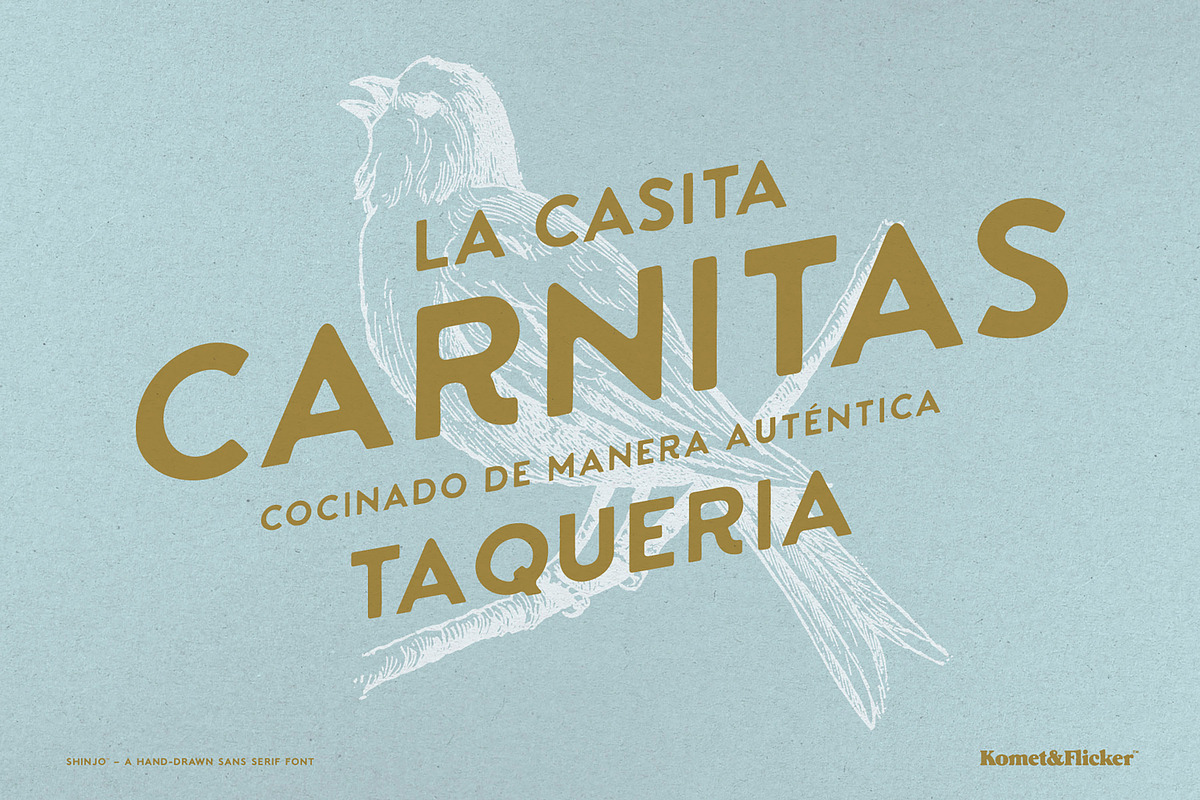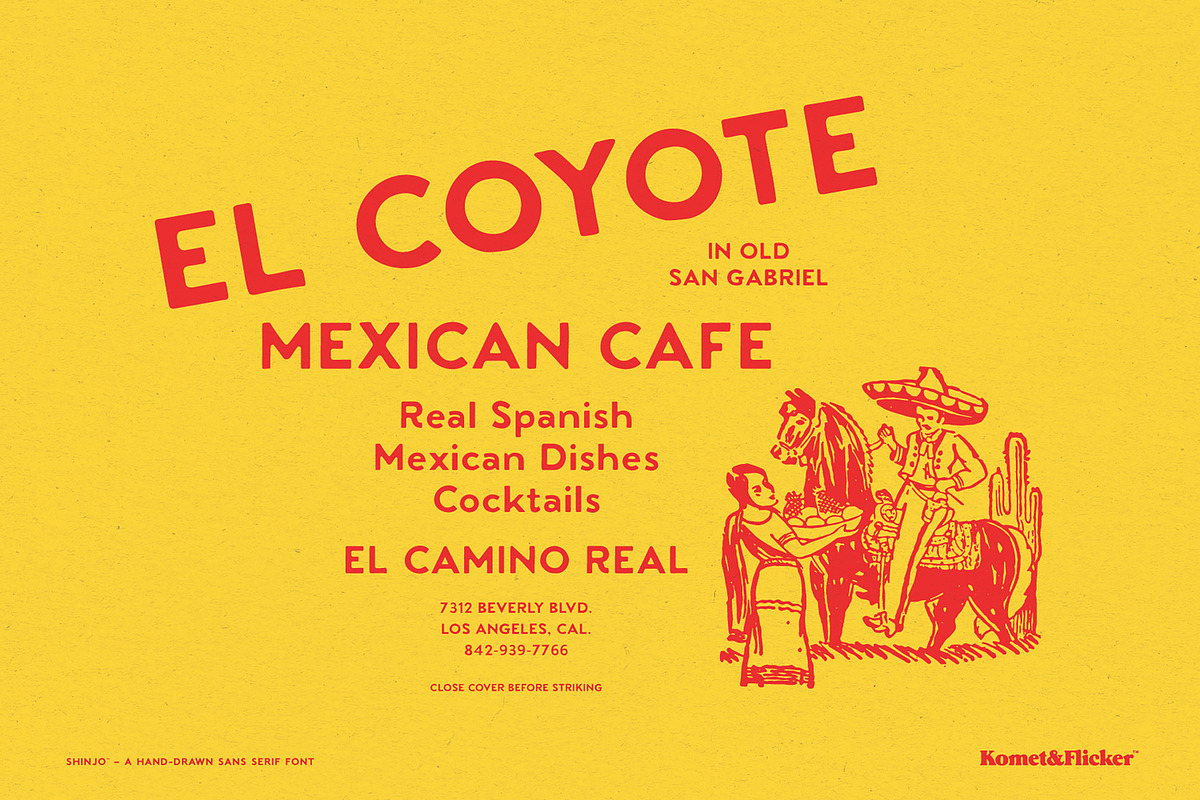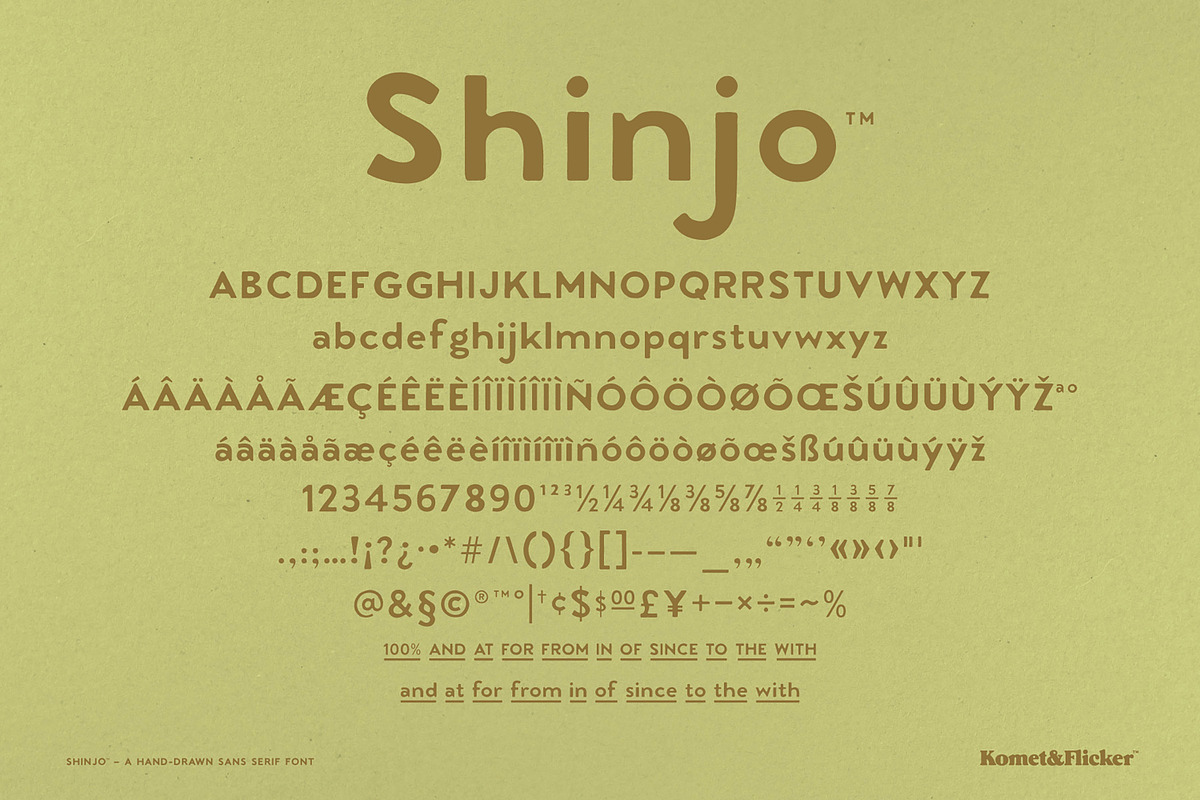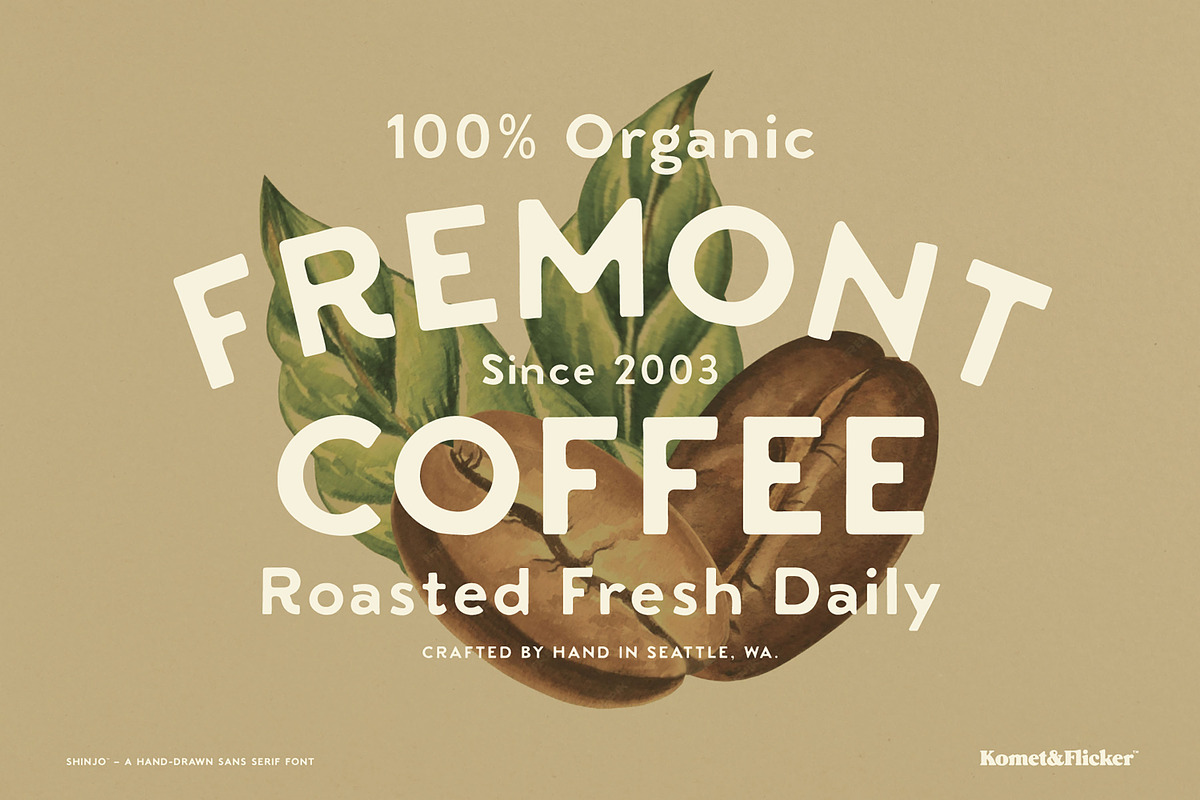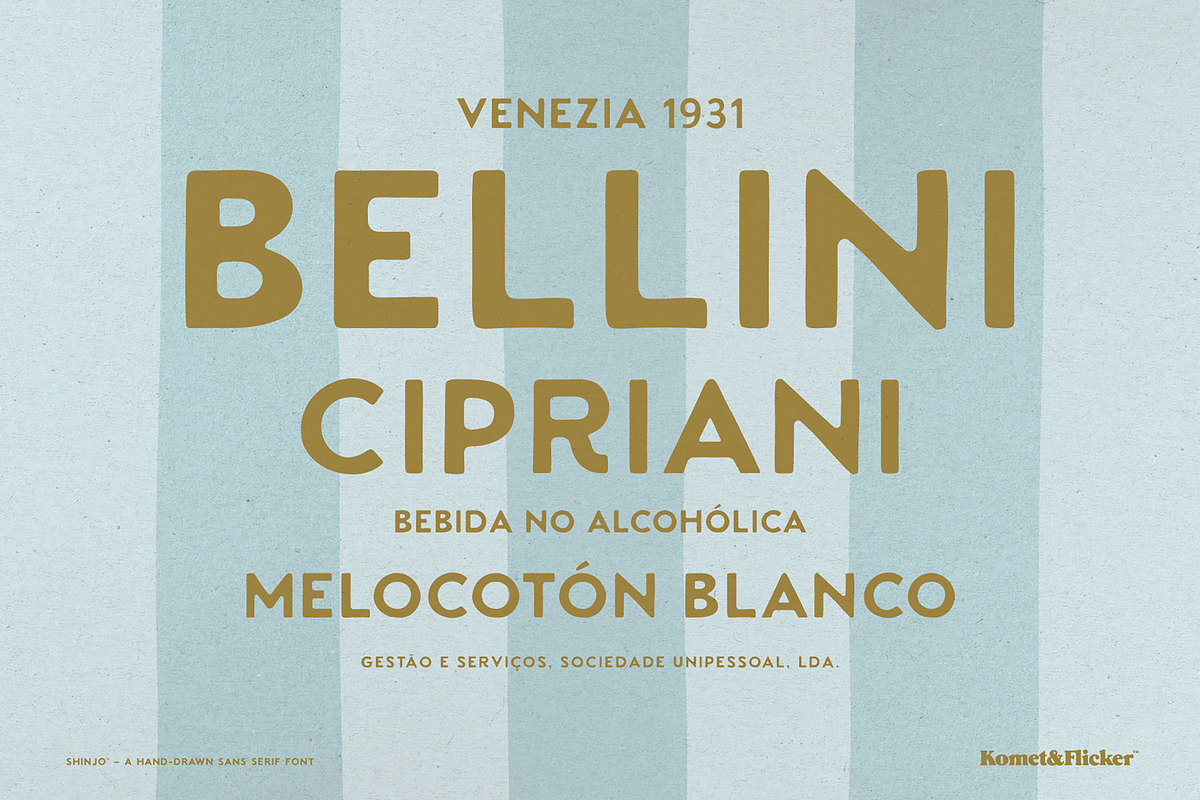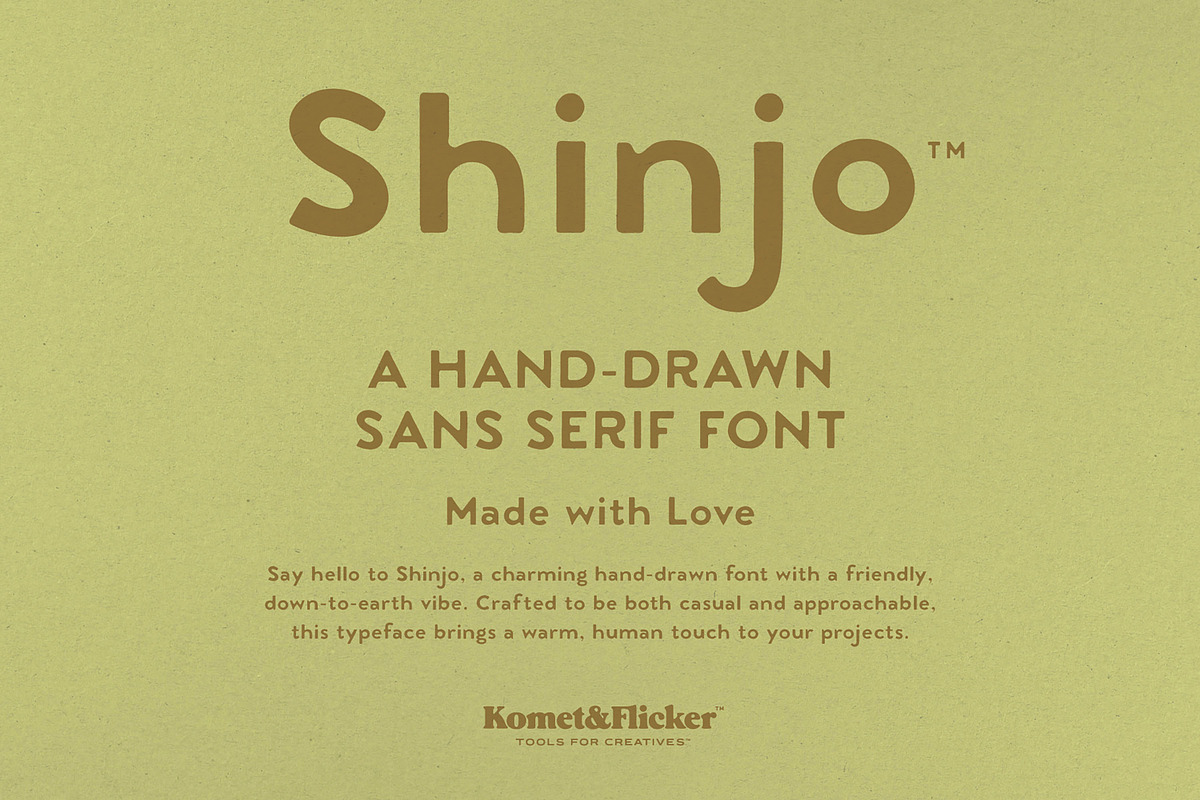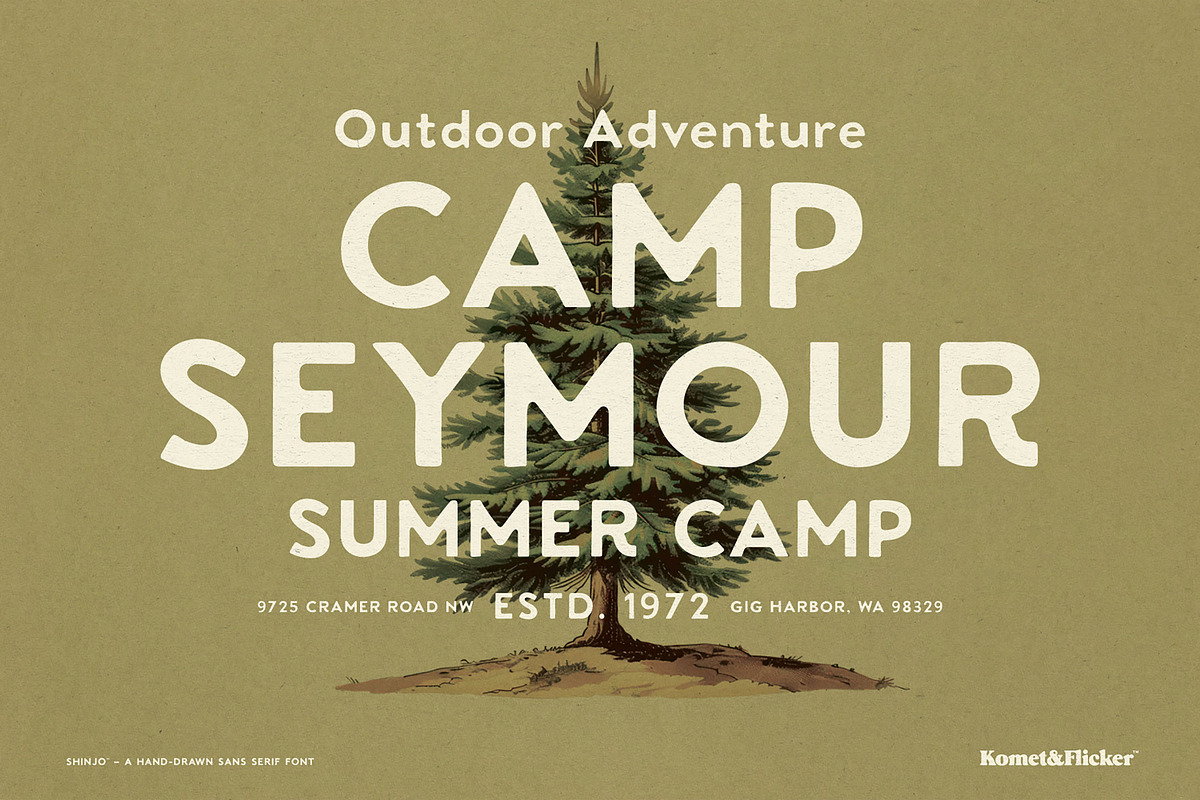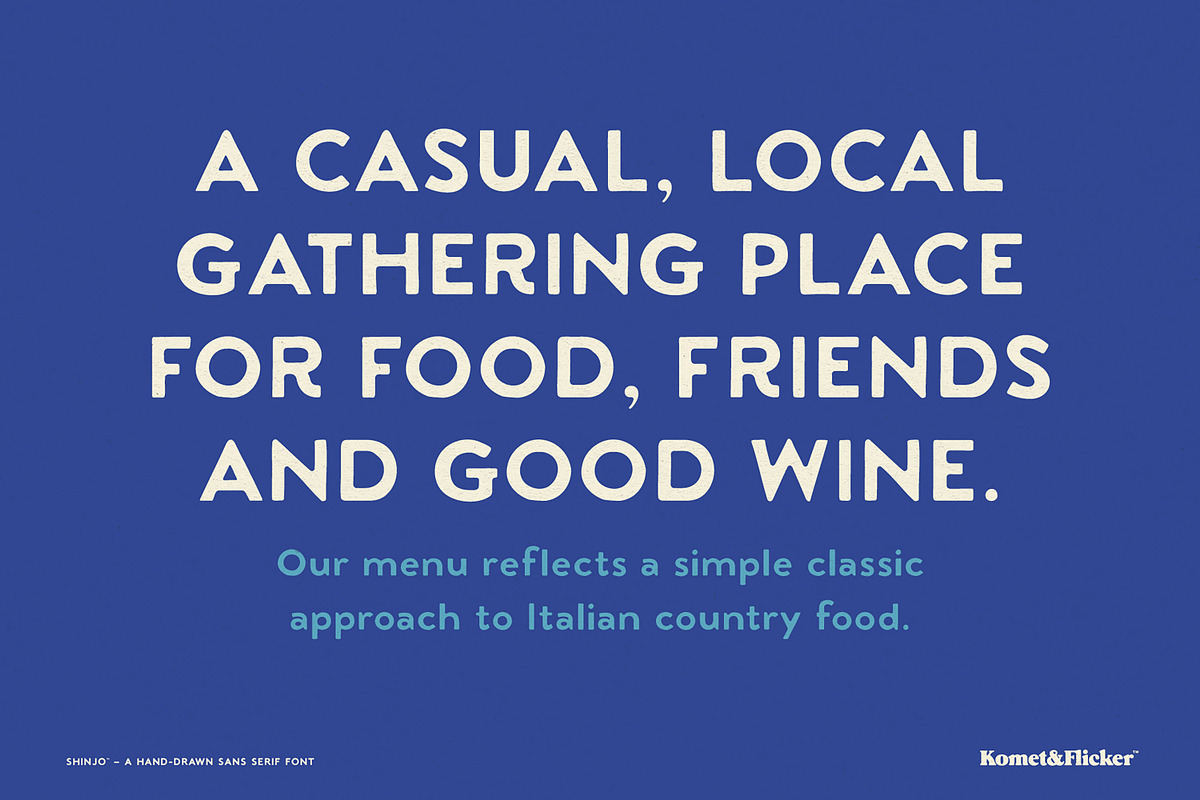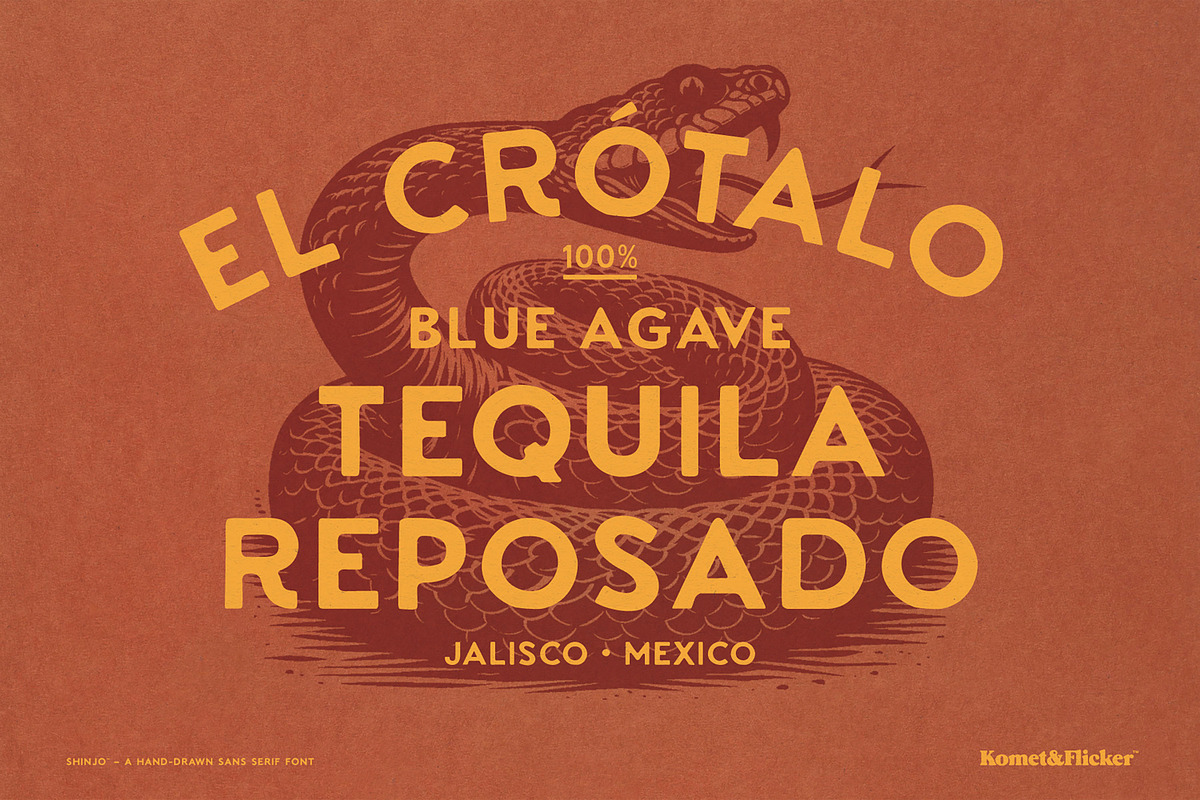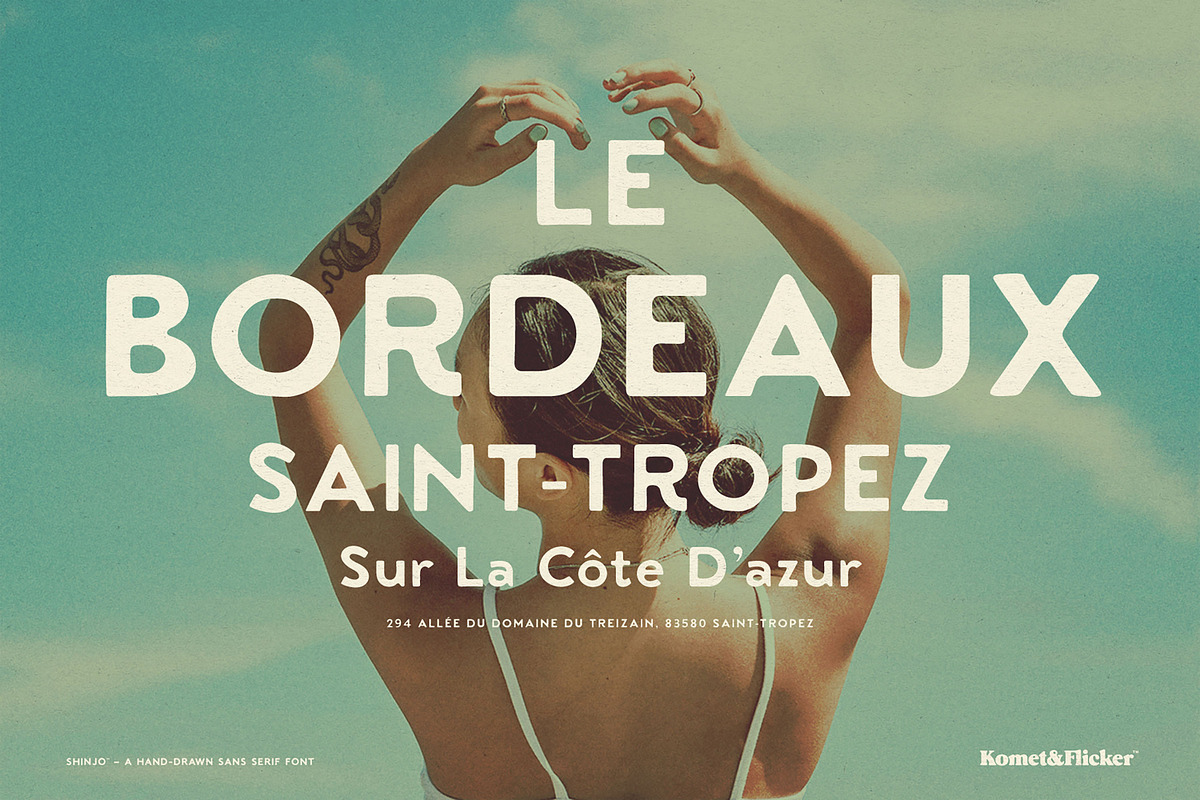
Shinjo - A Handmade Sans Serif
Say hello to Shinjo, a charming hand-drawn font with a friendly, down-to-earth vibe. Crafted to be both casual and approachable, this typeface brings a warm, human touch to your projects – perfect for anything from playful branding to relaxed layouts. As a handmade font, Shinjo has an imperfect and organic personality that makes it feel truly unique.
Shinjo comes with a set of 10 custom connecting words in two styles (ie: AND, THE, WITH) designed to integrate with the rest of your text for added flair. Also included are alternate versions of the uppercase G and R glyphs.
THIS FONT INCLUDES
Full A-Z upper and lowercase basic latin characters
Select European specific characters
Numbers, punctuation, and select symbols
Two styles of pre-made common fractions
Set of 21 custom connecting word glyphs